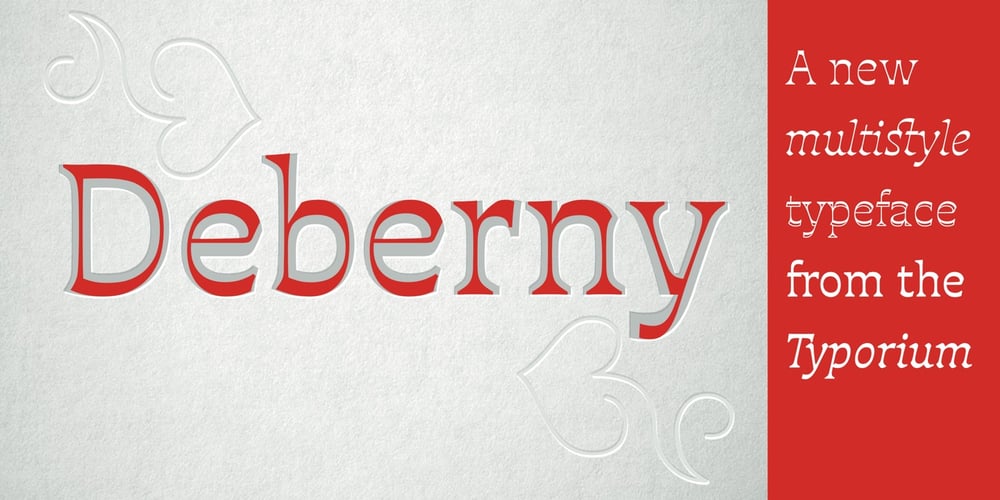
Deberny Font Family was designed by Jean-Renaud Cuaz and published by Typorium. Deberny contains 33 styles and family package options. The Deberny typeface is an interpretation–carrying a contemporary imprint–of a typographic style which appeared and spread at the end of the 19th century until the begining of the 20th. These typefaces were named Italian, Venetian, Veronese and were classified in the Hellenic category, a spontaneous typographic movement caracterized by triangular and heavy serifs. They found their inspiration among numerous references, from incised to slab serif typefaces and their extreme expressions in wood type letterforms. The Deberny font family is made of 26 styles in 3 complementary sets of style, offering a wide palette of visual resonance: • Deberny Line is ideally suited for editorial, branding, posters and billboards. It has sharp contrast between thick and thin strokes. Heavy horizontal strokes are not frequent in roman letters, but here they fit naturally with the italic letters. • Deberny Open is a stylish outline declination of Deberny Line Medium and Medium Italic. • Deberny Text is an adaptation of Deberny Line made for broader use. Its shapes are less contrasted, which makes it perfectly legible for print or screen reading in small size text. Old style figures and small caps complete Deberny Text in all its 8 styles. The Deberny typeface family supports Latin-based languages and will be available soon in Cyrillic and Greek. Deberny Narrow will be released this year in all its 26 styles.